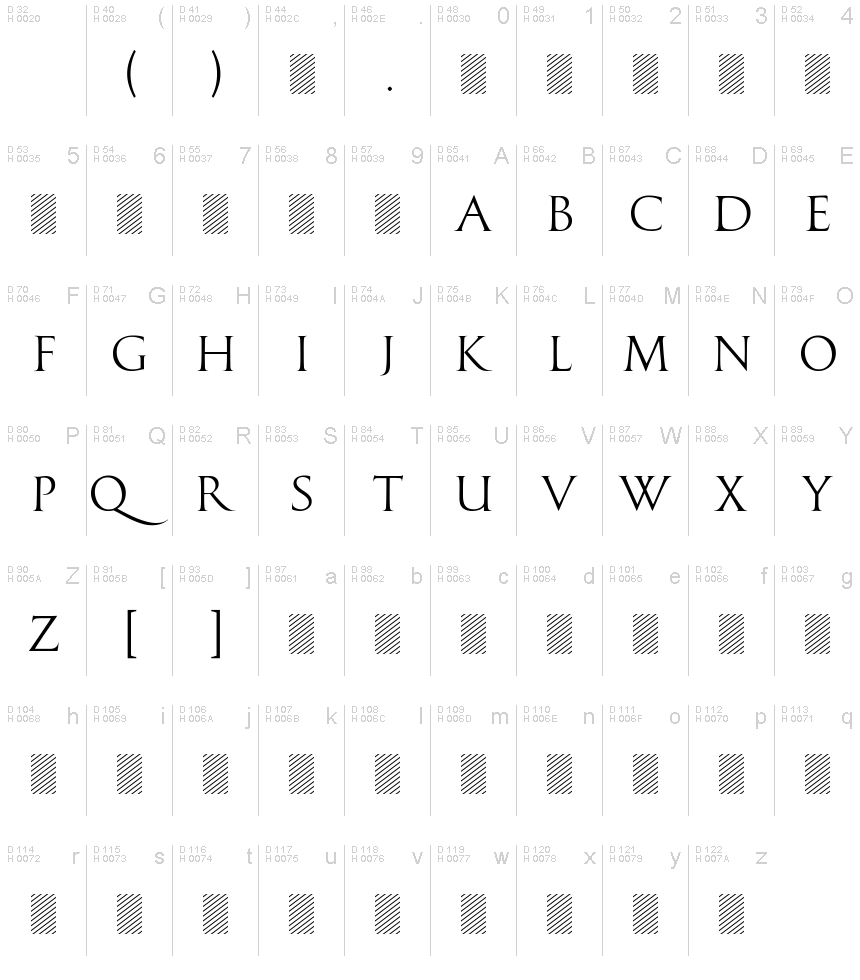
Cane Nero Regular
Cane Nero, designed by Michele Casanova, is a serif font that exudes elegance and sophistication. Its refined lines and classic structure make it a timeless choice for those seeking to evoke a sense of tradition and reliability. The font's balanced proportions and graceful serifs lend it a distinguished appearance that stands out in both digital and print mediums.
Ideal for high-end branding, editorial layouts, and formal invitations, Cane Nero brings an air of prestige to any project. Its versatility allows it to seamlessly adapt to various design contexts while maintaining its unique charm. Whether used in headlines or body text, this font ensures readability without compromising on style. Cane Nero is perfect for designers looking to make a lasting impression with their work.